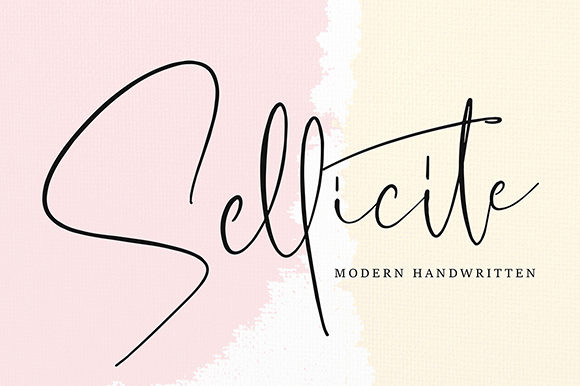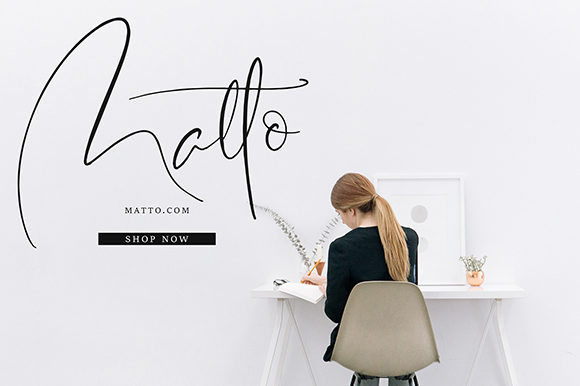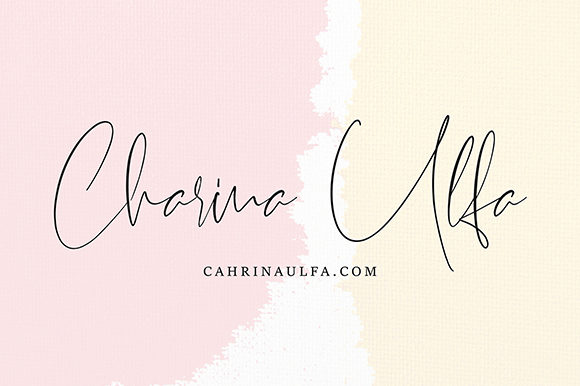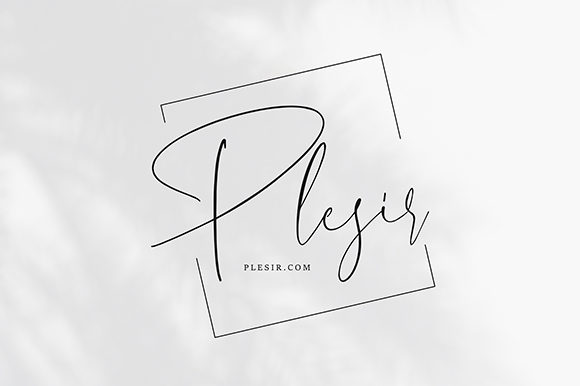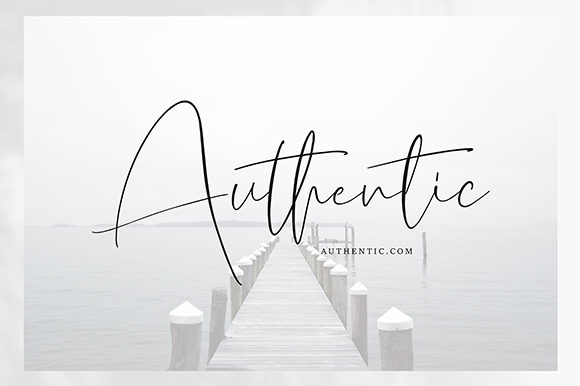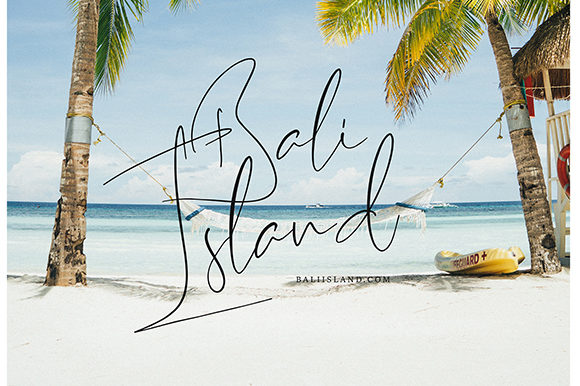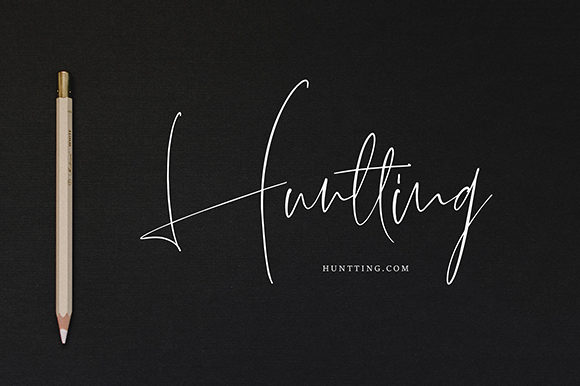
Sellicite Font
About Sellicite Font
Sellicite is a mildly modern and charming handwritten font with a beautiful feel. Get inspired by its authentic charm, and turn any design project into a stand out!